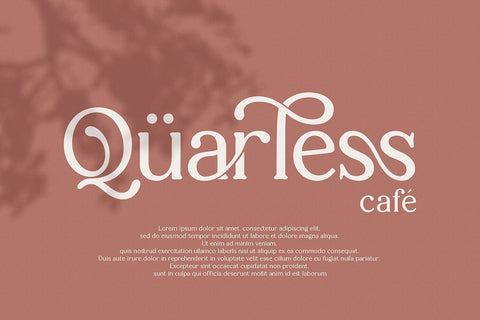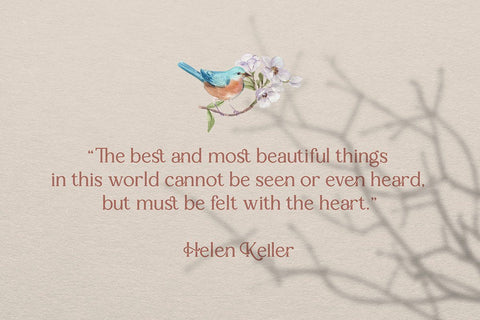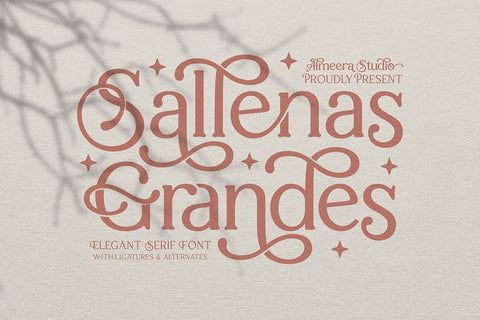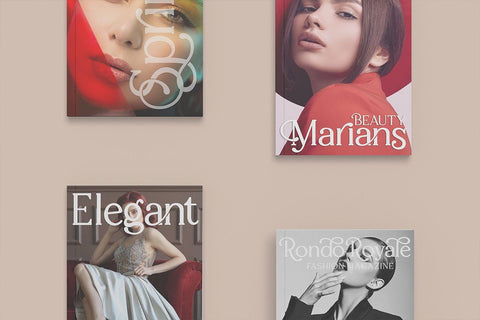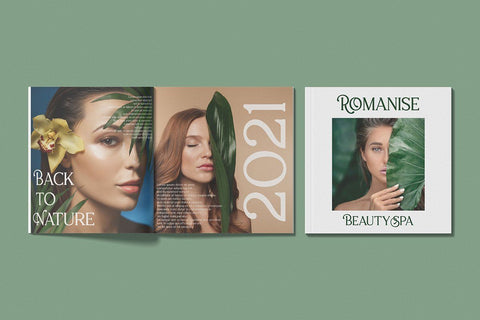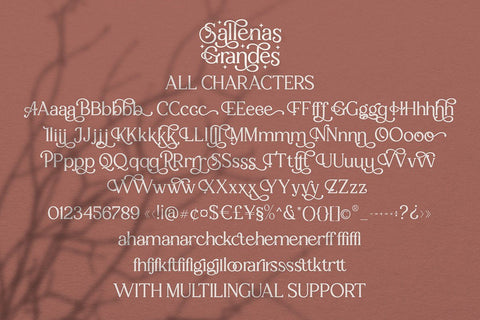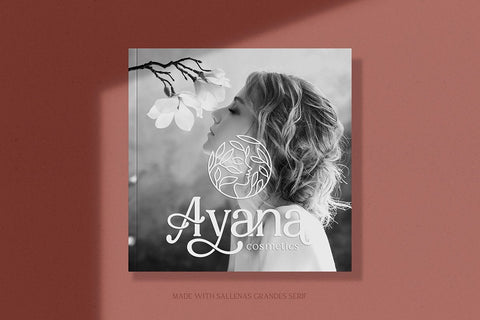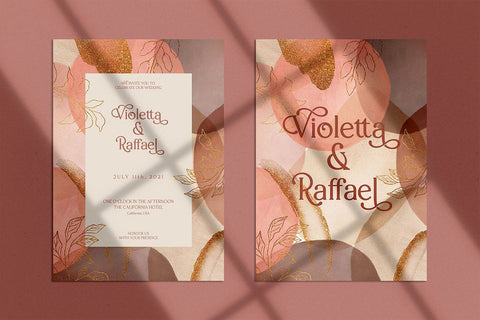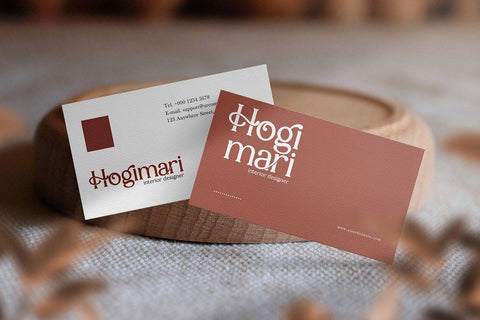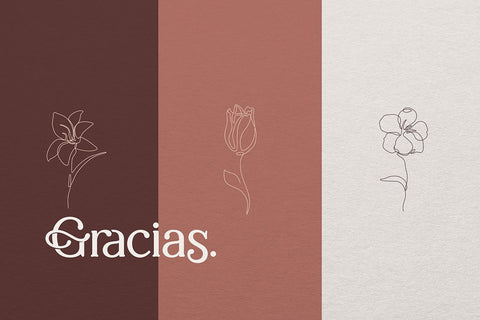
Sallenas Grandes|Elegant Serif Font
Introducing our newest typeface called Sallenas Grandes - Elegant Serif Font with many Ligatures & Alternates . can make your lettering / logotype become more interesting. The clean and neat of a serif combined with the alternates & ligatures makes this font very attractive.
This font perfectly made to be applied especially in logo, and the other various formal forms such as invitations, labels, logos, magazine headers, books, greeting / wedding cards, Clothing Branding, product packaging, fashion, make up, quotes, stationery, novels,cutting, labels and advertising purpose.
- uppercase & lowercase
- numbers and punctuation
- multilingual
- ligatures
- stylistic alternates